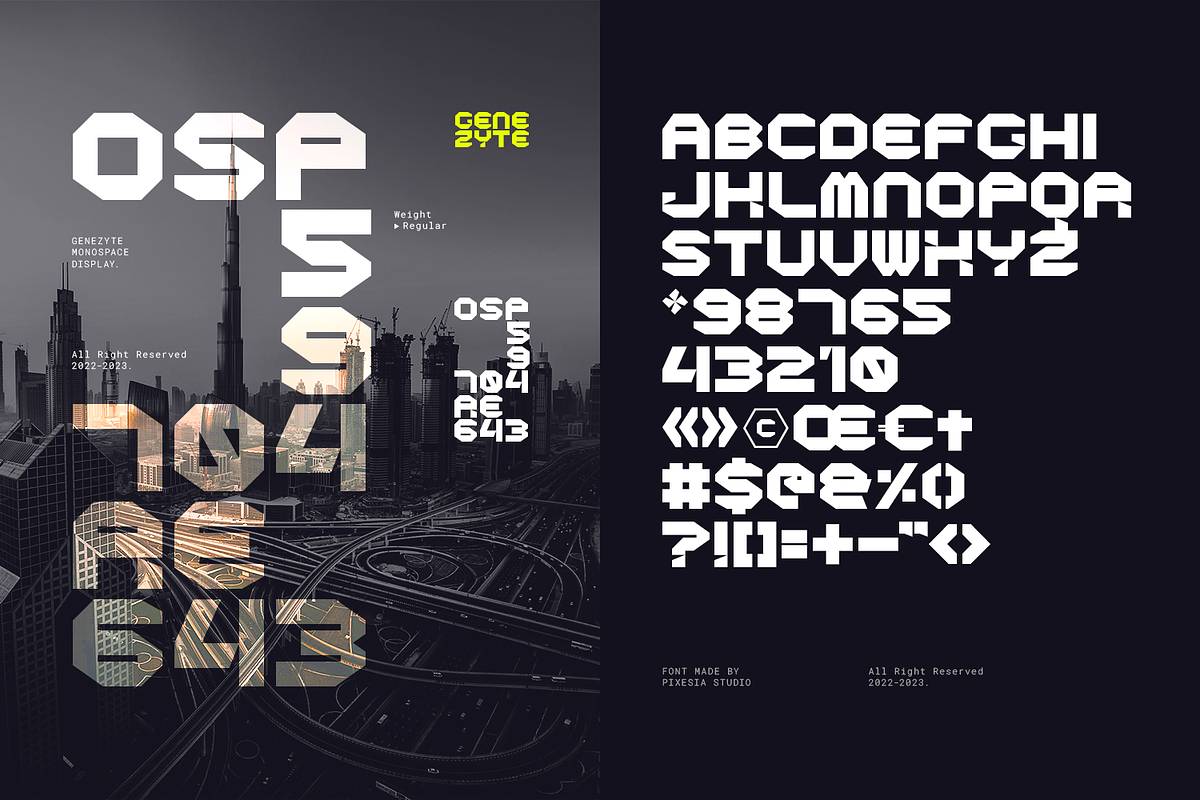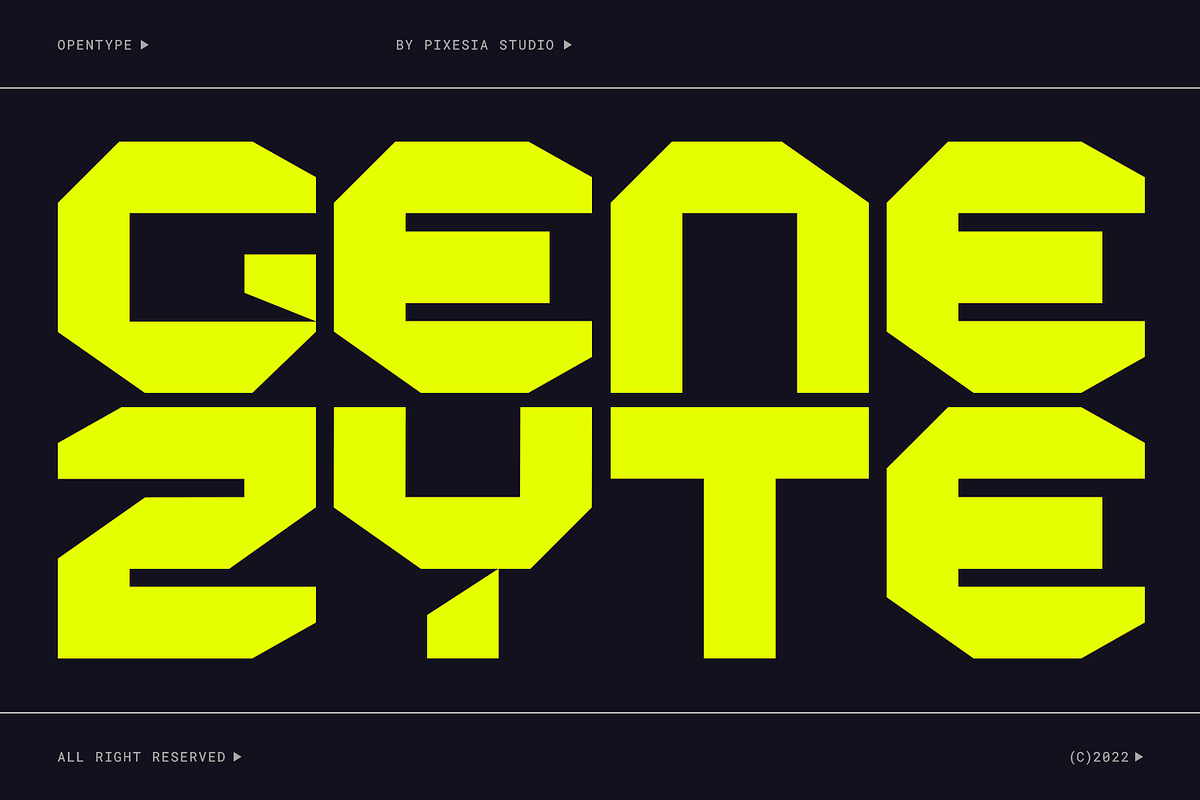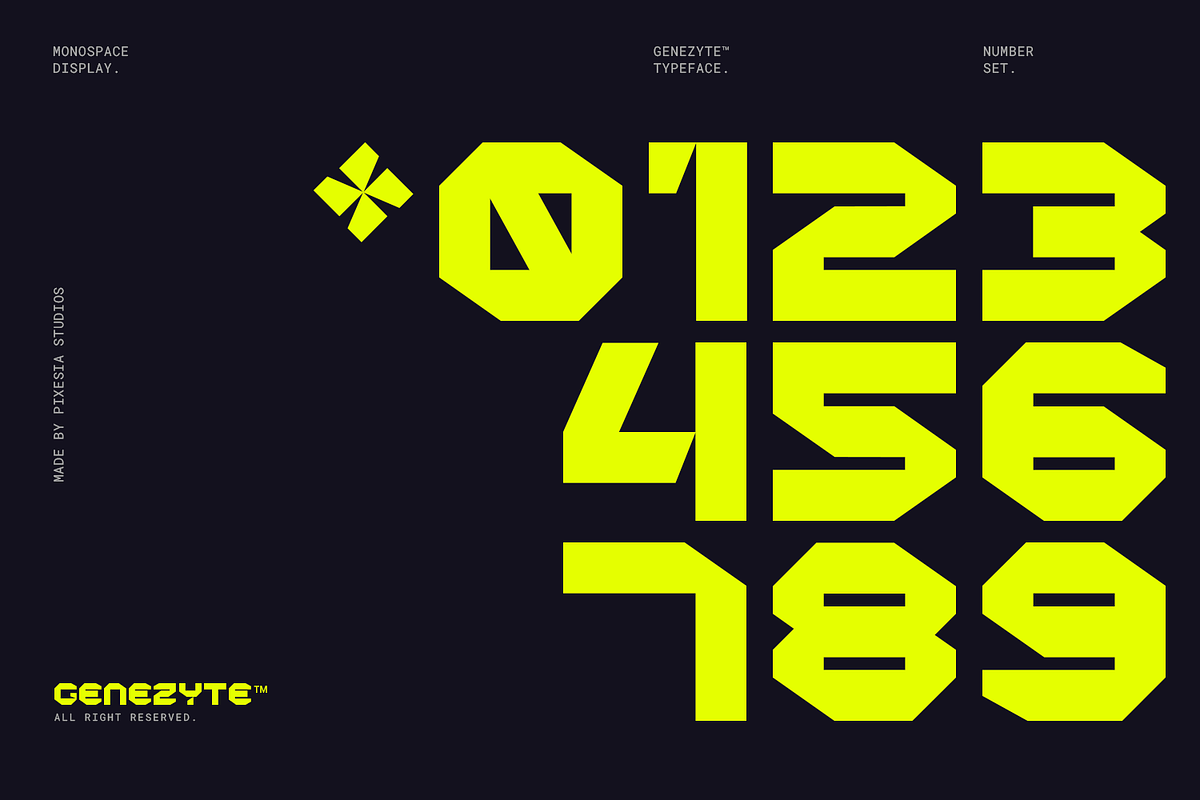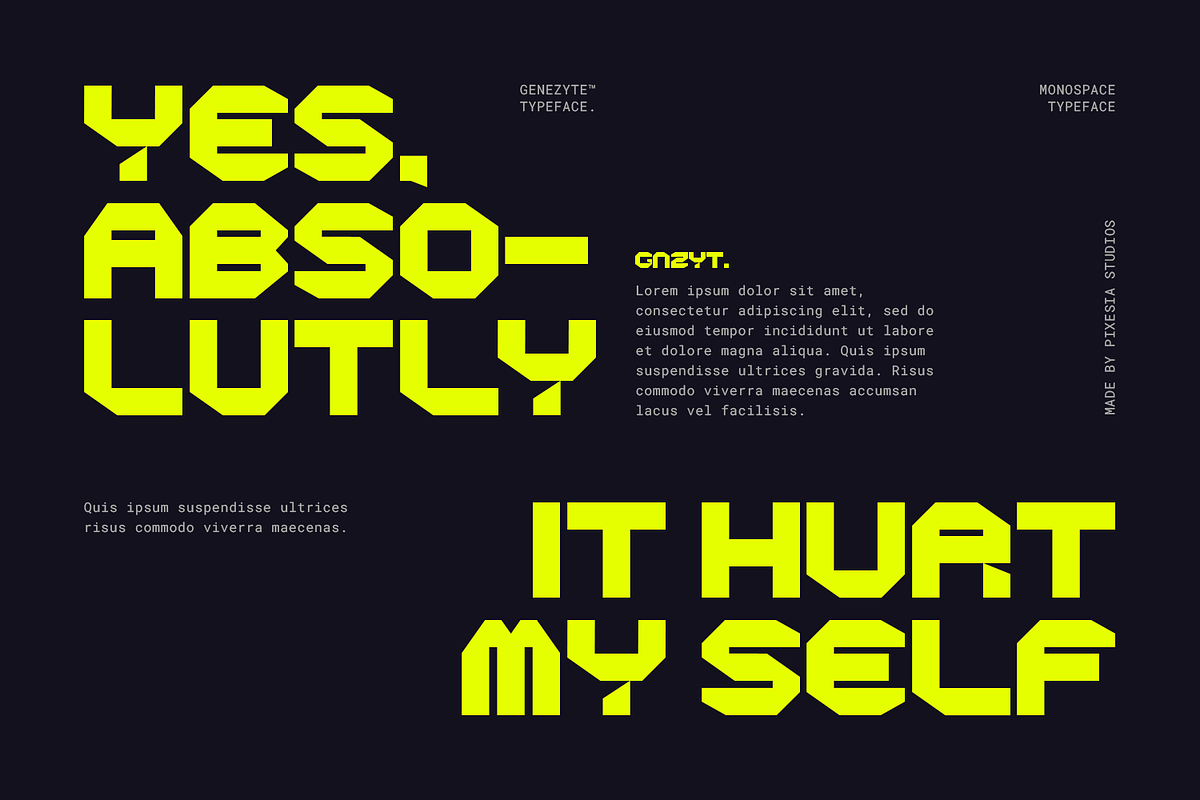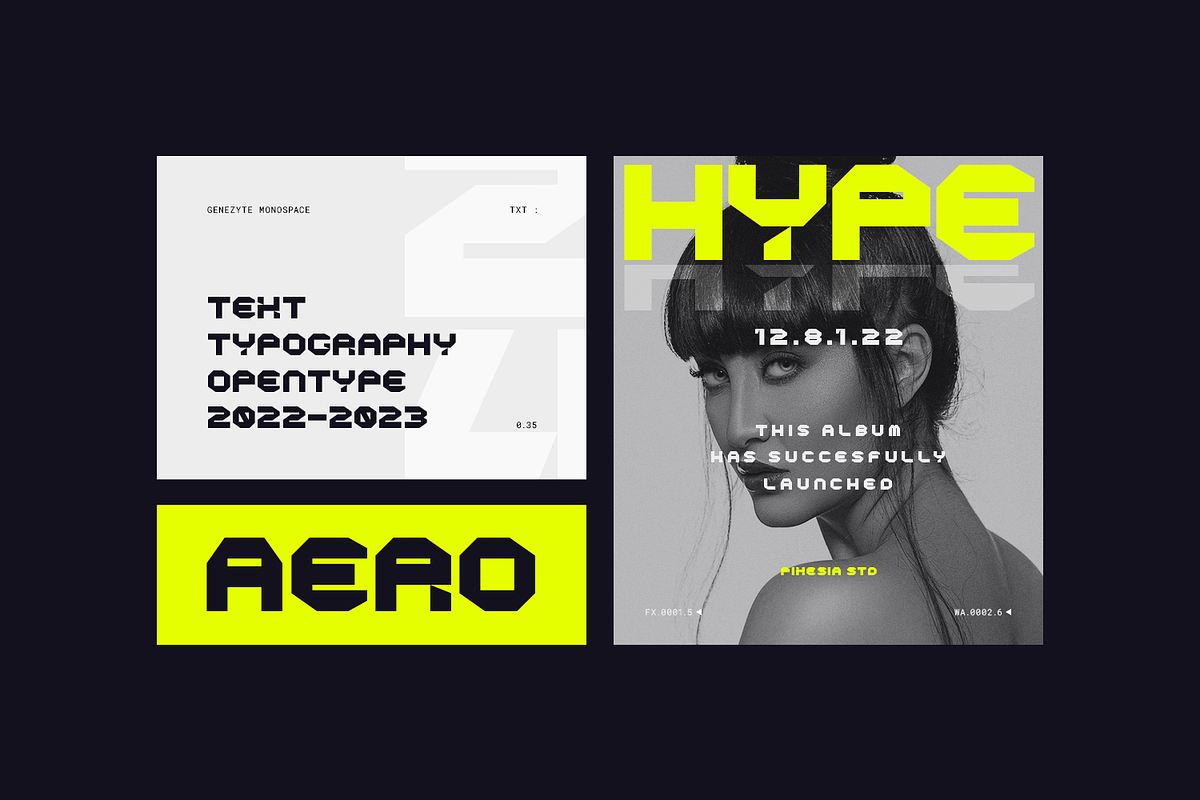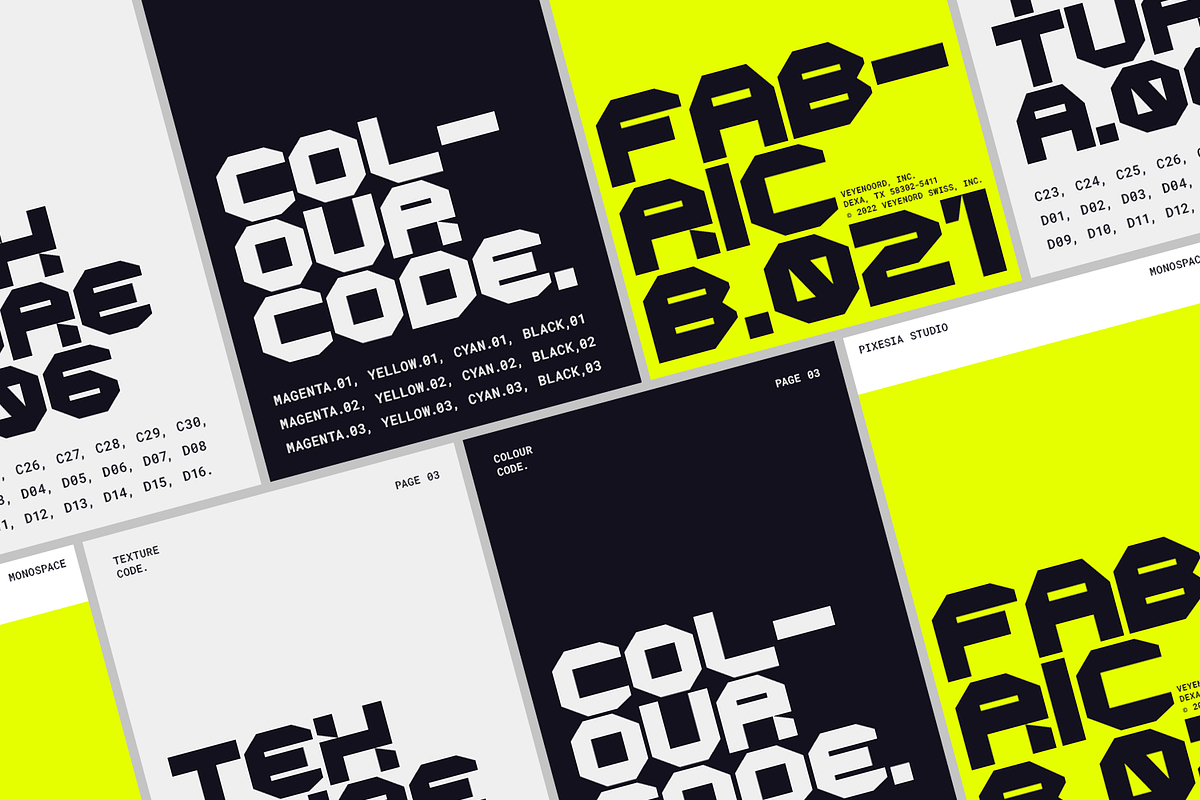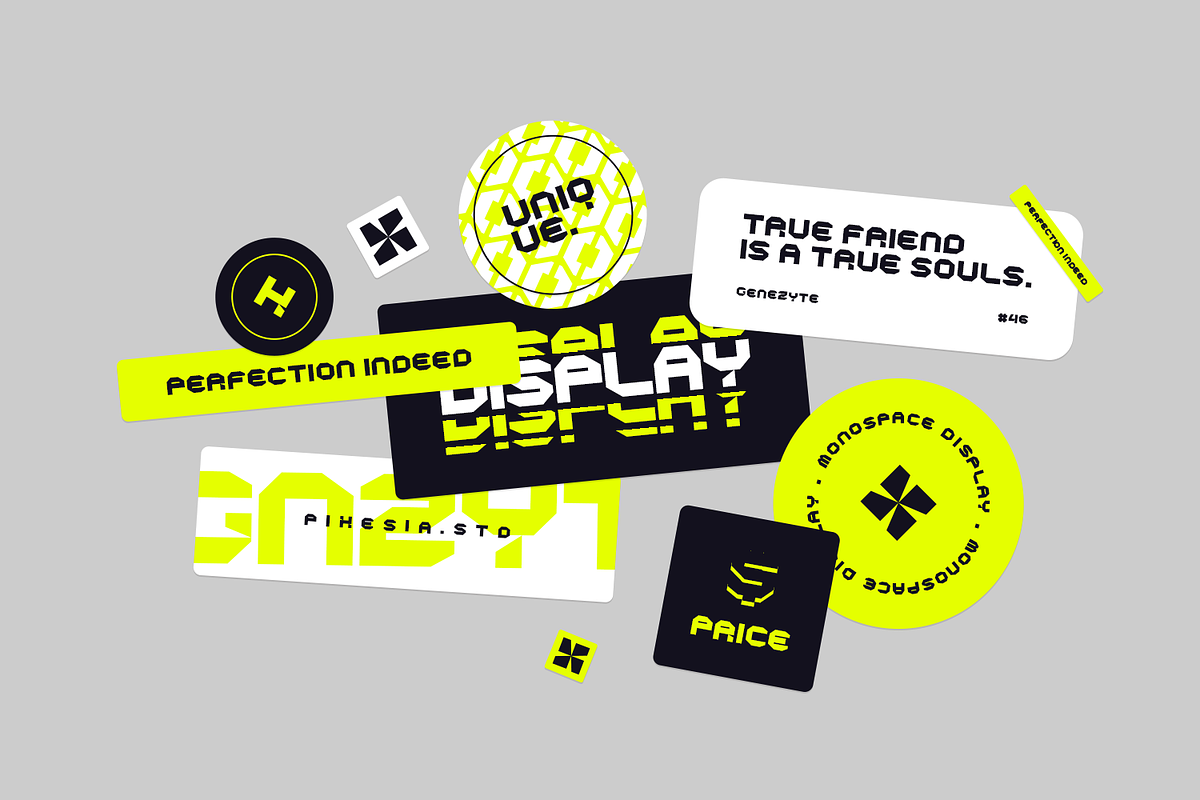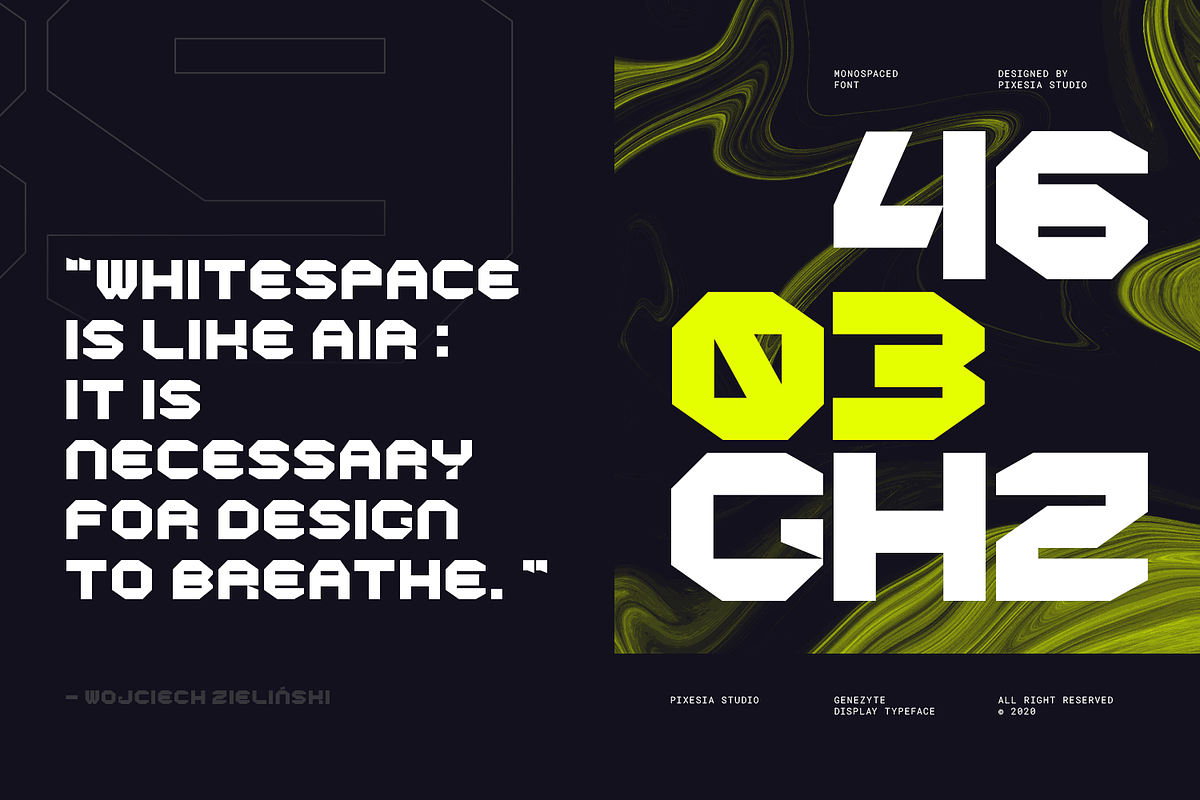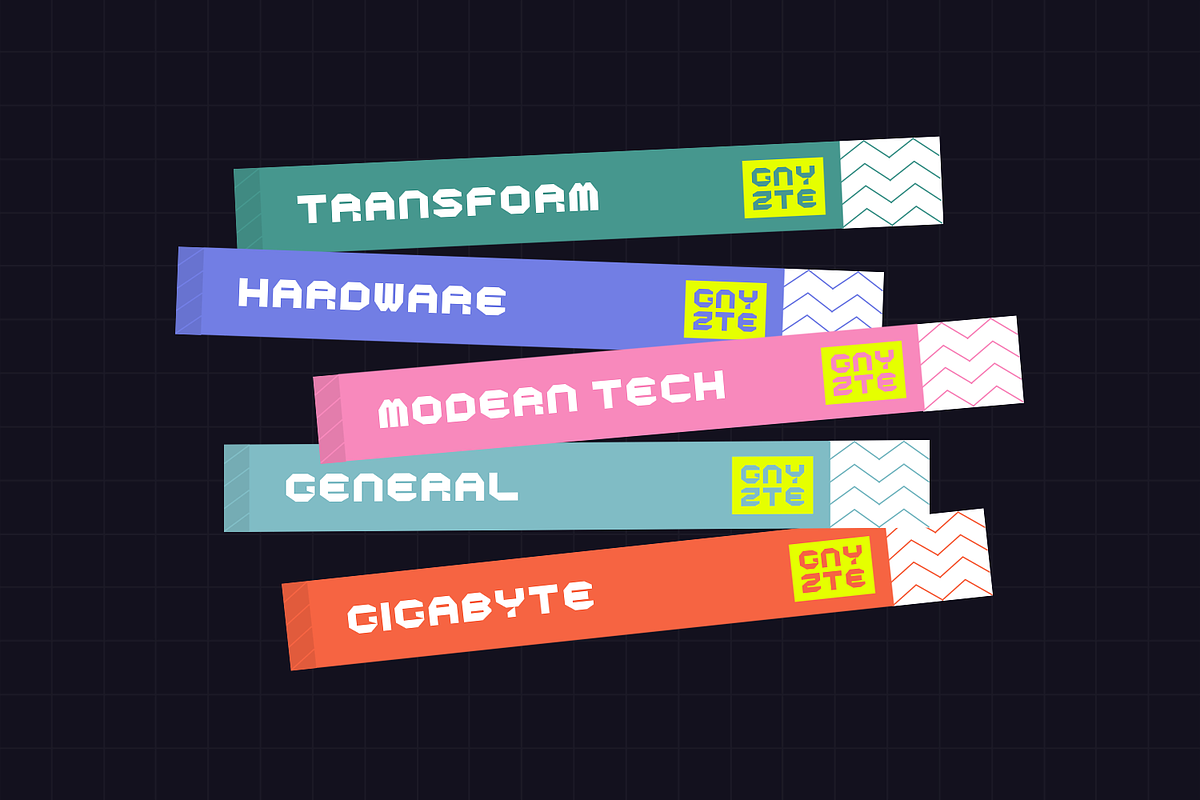
Genezyte - Monospaced Display Font
Introducing Genezyte - Monospaced Display Font
Genezyte is a modern and stylish monospaced display font that is perfect for creating unique and eye-catching designs. With its clean and crisp lines, this font is ideal for headlines, logos, and other design elements that need to make a strong impression. Its monospaced design gives it a tech-savvy and futuristic feel, making it a great choice for tech-focused projects, as well as for creative designs that require a clean and modern aesthetic. Genezyte is a versatile font that supports multiple languages, and its extensive character set makes it a valuable tool for any designer looking to add a touch of style to their designs. Try Genezyte today!
- All Caps